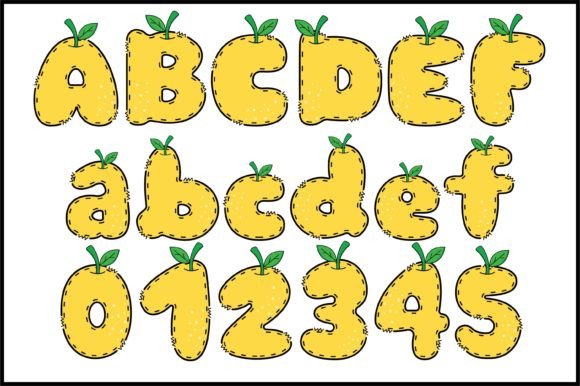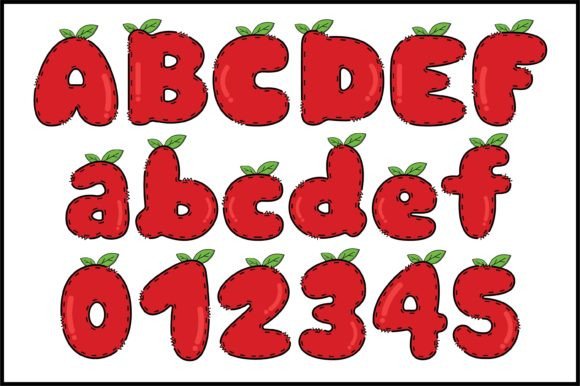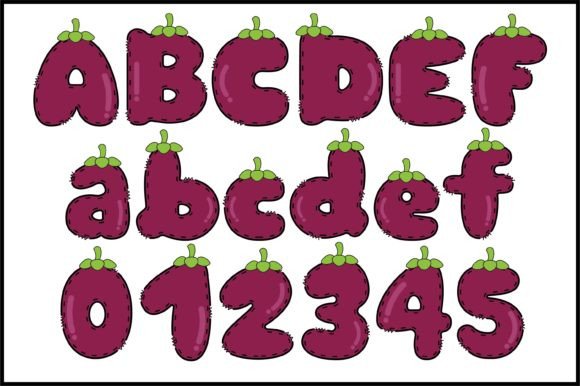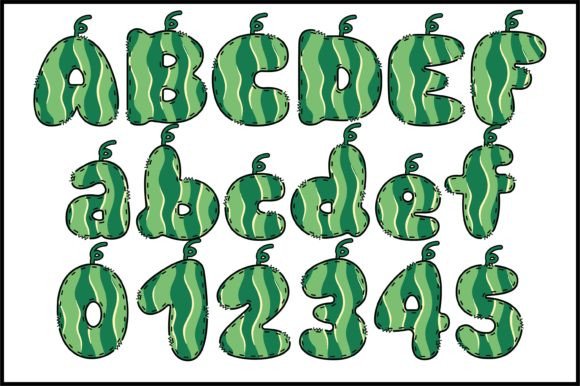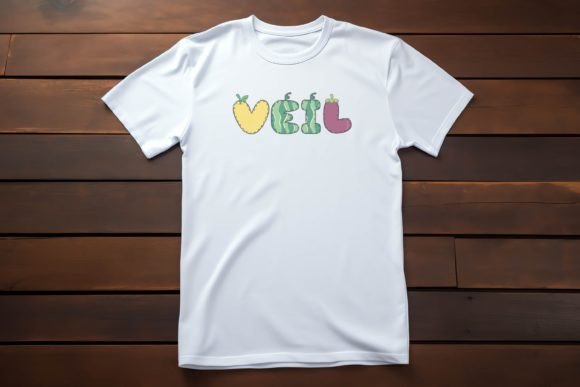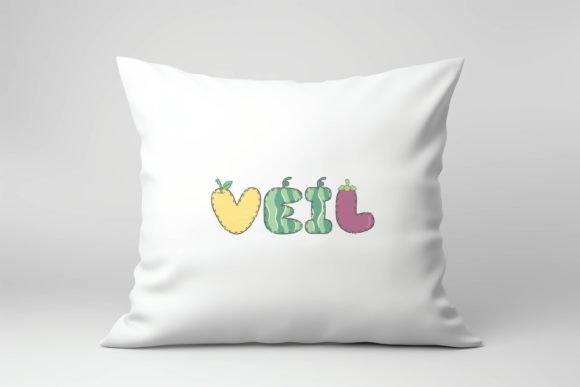
Discover the Charm of Fresh Fonts: Elevate Your Designs with Playful and Artistic Flair
When it comes to creating visually appealing designs, the choice of font plays a crucial role. Fresh fonts, in particular, have gained popularity among designers and crafters for their unique ability to convey a playful or artistic feel. These fonts are perfect for designs that require a touch of whimsy, making them ideal for children’s books, posters, invitations, greeting cards, and more.
The Power of Fresh Fonts in Design
Fresh fonts are characterized by their clean, yet playful aesthetic. They often feature rounded edges, irregular shapes, and a mix of bold and light weights. These design elements work together to create a sense of fun and approachability, making fresh fonts perfect for designs that aim to engage young audiences or evoke a sense of creativity.
Uses of Fresh Fonts
Fresh fonts are incredibly versatile and can be used in a variety of design projects. Some popular uses include:
- Children’s Books: Fresh fonts are a staple in children’s literature. They help create an engaging reading experience for young audiences with their whimsical, colorful, and easy-to-read design.
- Posters: Add a playful touch to your posters with fresh fonts. They’re perfect for promoting events, announcing sales, or showcasing a brand’s personality.
- Invitations: Make your invitations stand out with fresh fonts. They’re ideal for weddings, birthday parties, and other celebrations that require a touch of whimsy.
- Greeting Cards: Fresh fonts add a personal touch to greeting cards, making them perfect for special occasions like holidays, birthdays, and anniversaries.
Characteristics of Fresh Fonts
Fresh fonts often feature a range of characteristics that set them apart from other font styles. Some common features include:
- Rounded Edges: Fresh fonts often feature rounded edges, which give them a soft and approachable feel.
- Irregular Shapes: Fresh fonts may incorporate irregular shapes, such as imperfect curves or asymmetrical designs.
- Bold and Light Weights: Fresh fonts often combine bold and light weights to create visual interest and add depth to a design.
- Whimsical Details: Fresh fonts may include whimsical details, such as hand-drawn elements or decorative flourishes.
Tips for Using Fresh Fonts Effectively
To get the most out of fresh fonts, follow these tips:
- Pair with Neutral Backgrounds: Fresh fonts often work best on neutral backgrounds, which allow the font to take center stage.
- Experiment with Color: Fresh fonts look great in bold, bright colors. Experiment with different color combinations to find the perfect fit for your design.
- Keep it Simple: Don’t overcomplicate your design. Fresh fonts work best when used in simple, yet effective designs.
- Consider Readability: While fresh fonts are often playful, make sure they’re still easy to read. Choose a font that’s legible, even at small sizes.
| Font Name | Fresh Font |
| Author | Veil |
Fresh fonts offer a unique way to add a playful or artistic feel to your designs. With their clean, yet whimsical aesthetic, they’re perfect for a range of projects, from children’s books to posters and invitations. By understanding the characteristics of fresh fonts and how to use them effectively, you can elevate your designs and create engaging, visually appealing content that resonates with your audience.
Whether you’re a designer, crafter, or simply someone who loves to create, fresh fonts are a great way to add some personality to your work. So why not give them a try? Explore the world of fresh fonts and discover the charm they can bring to your designs.